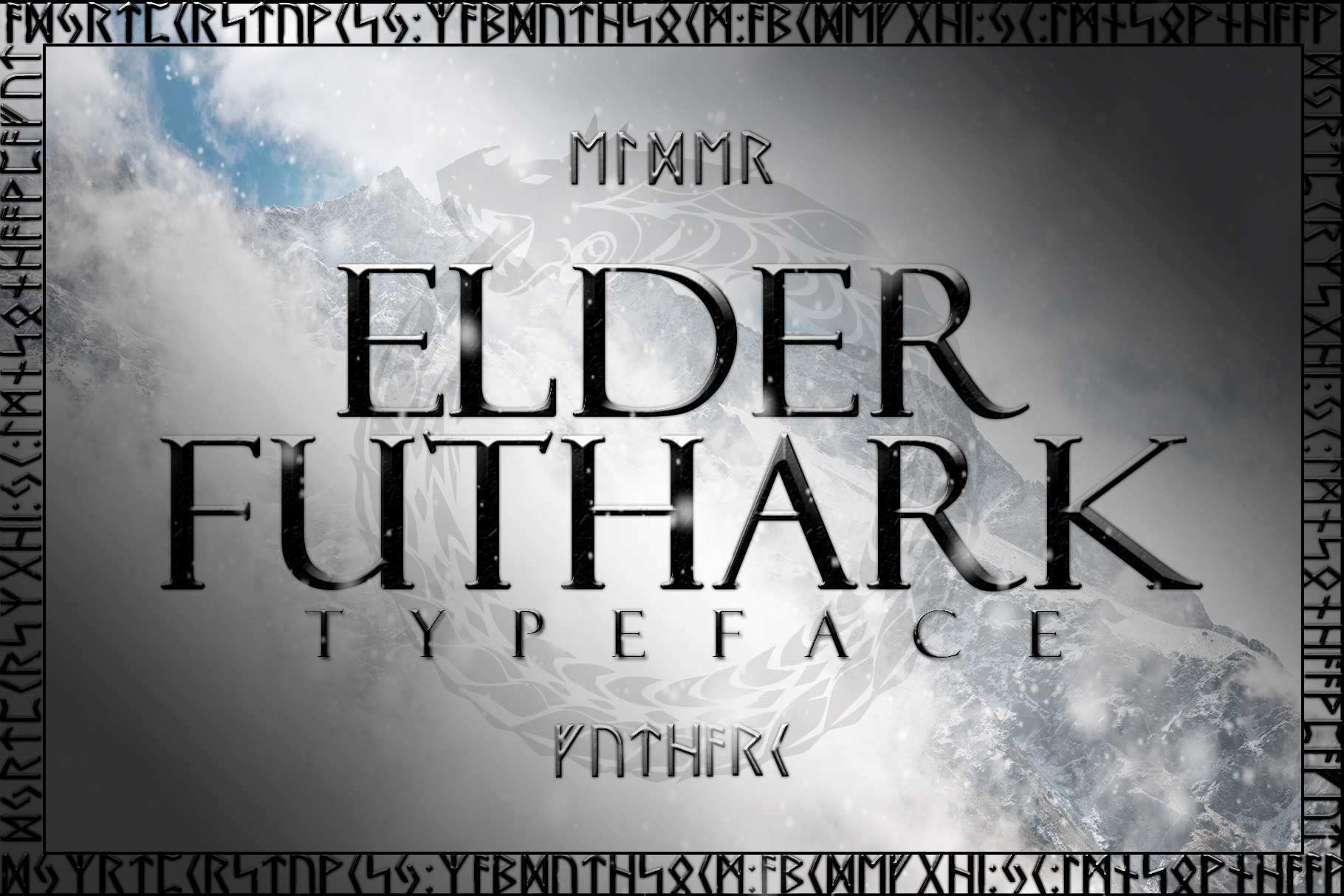
Norse Elder Futhark Typeface
The Elder Futhark typeface is a unique font based on the oldest form of the runic alphabets. It was a writing system used by Germanic tribes. Runic inscriptions are found on artefacts, including jewellery, amulets, tools, weapons, and, of course, runestones, from the 2nd to the 8th centuries. This typeface is perfect for logos, monograms, titles, and posters. The typeface acts as a translator and can add a lot of character to a project.
I like the font, but it takes some extra time to use it since the runic symbols are so different from the English letters that correspond to them. If I want to check for typos, I need to change the words back to a standard font, make corrections and then change the font back to Elder Futhark, requiring extra time on my part while creating something with the font.